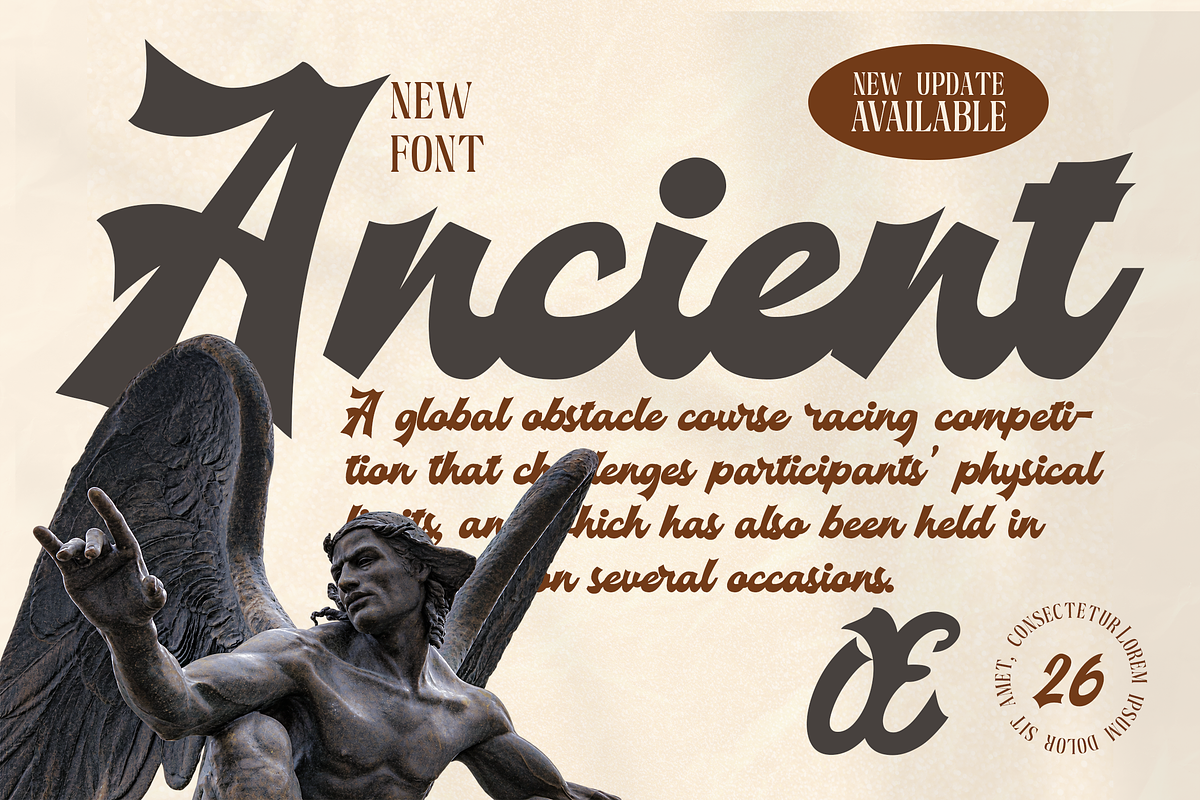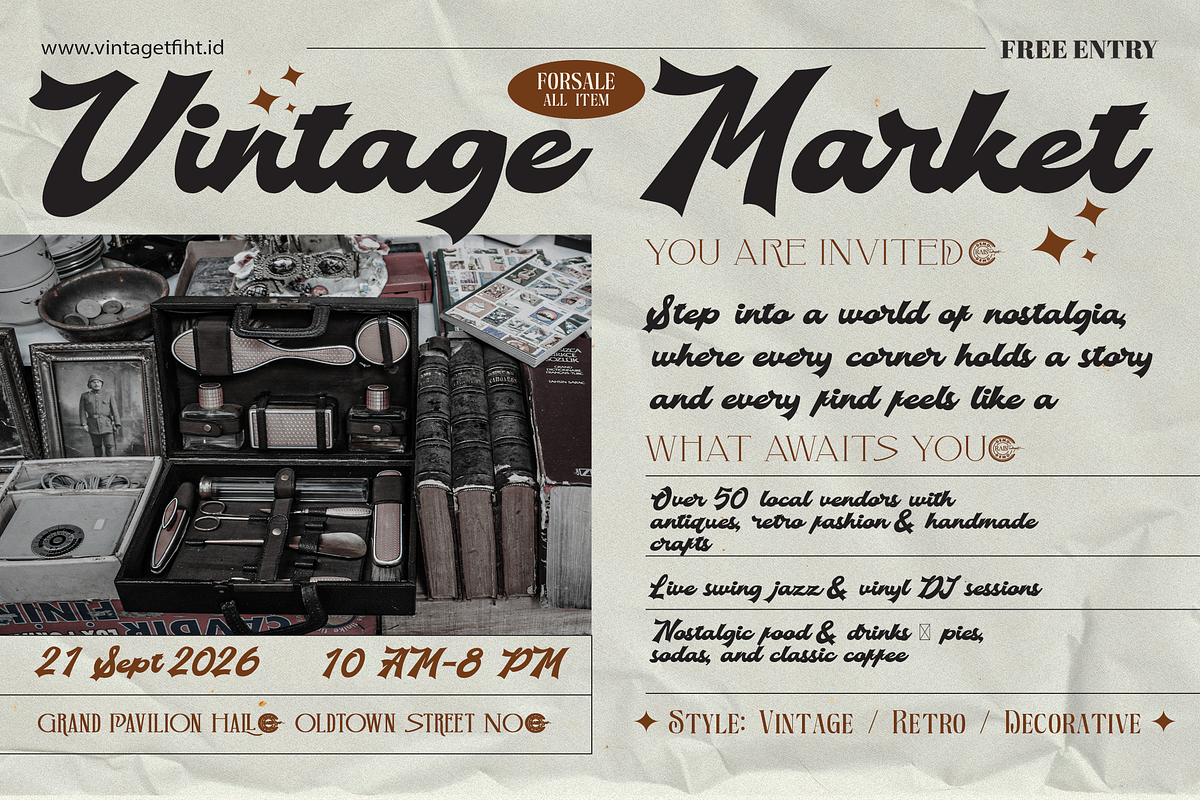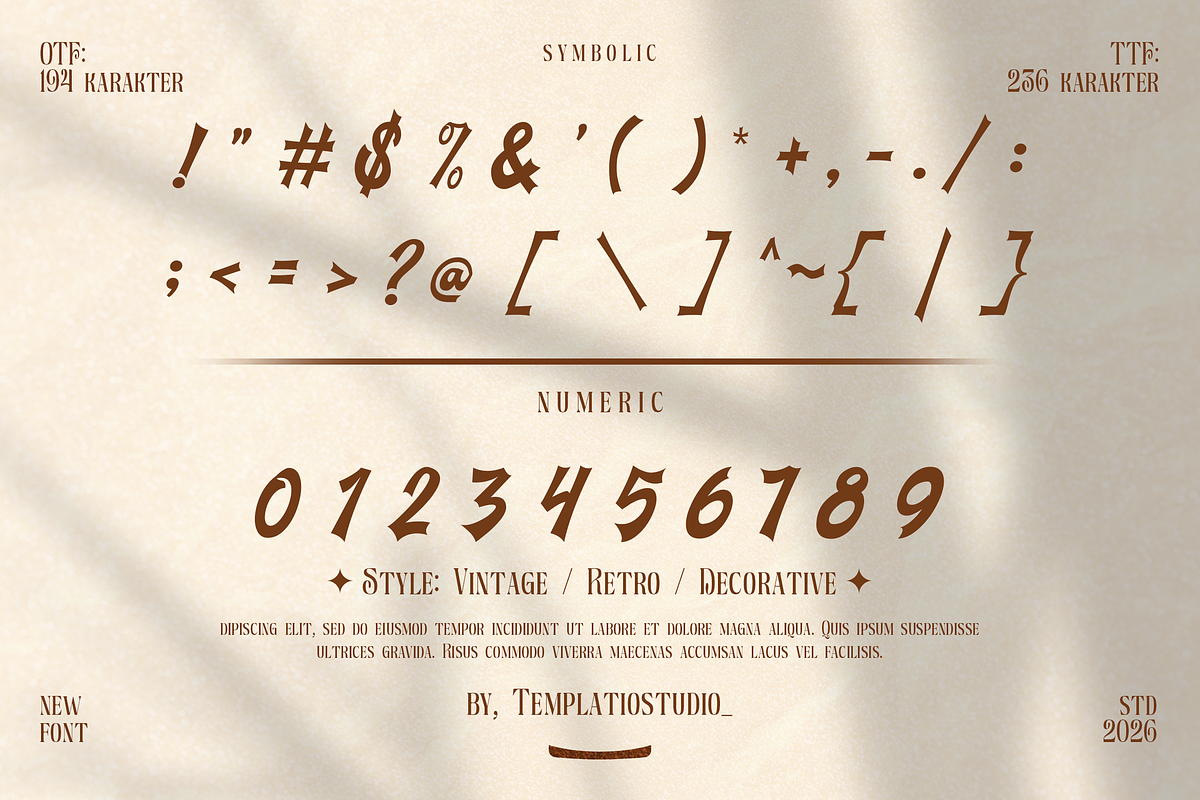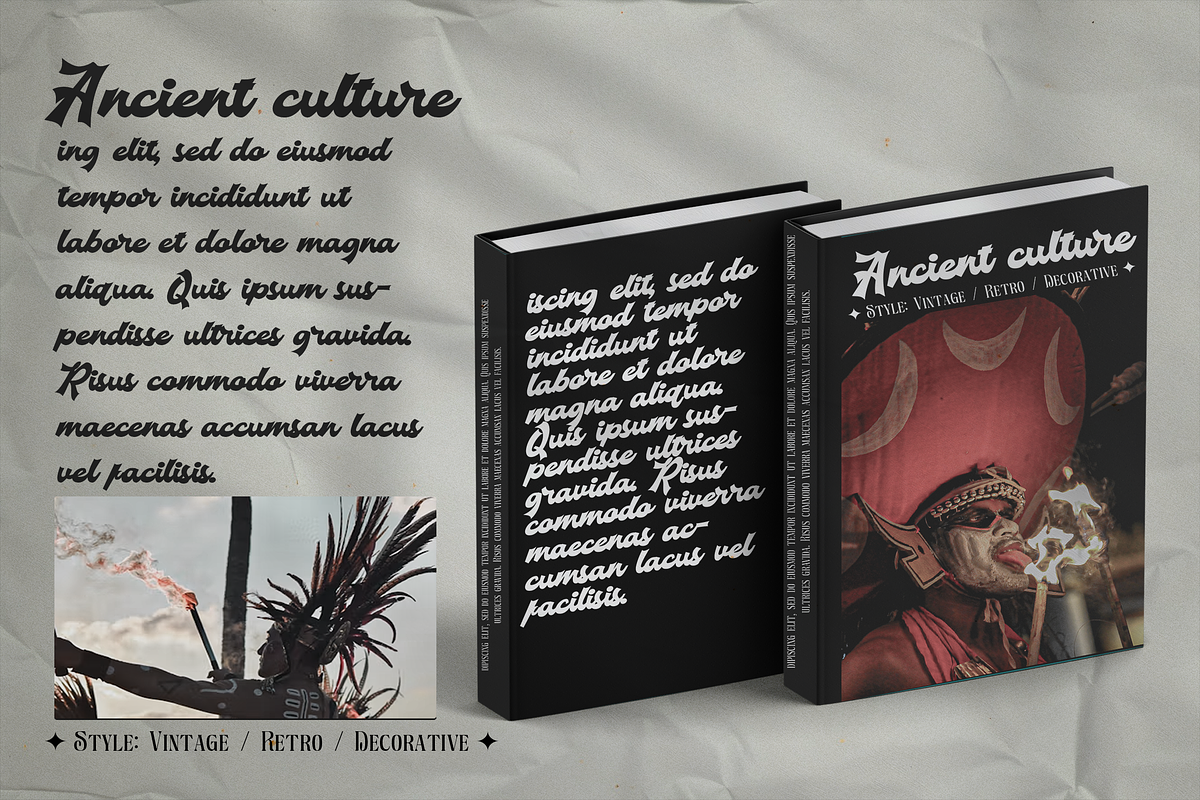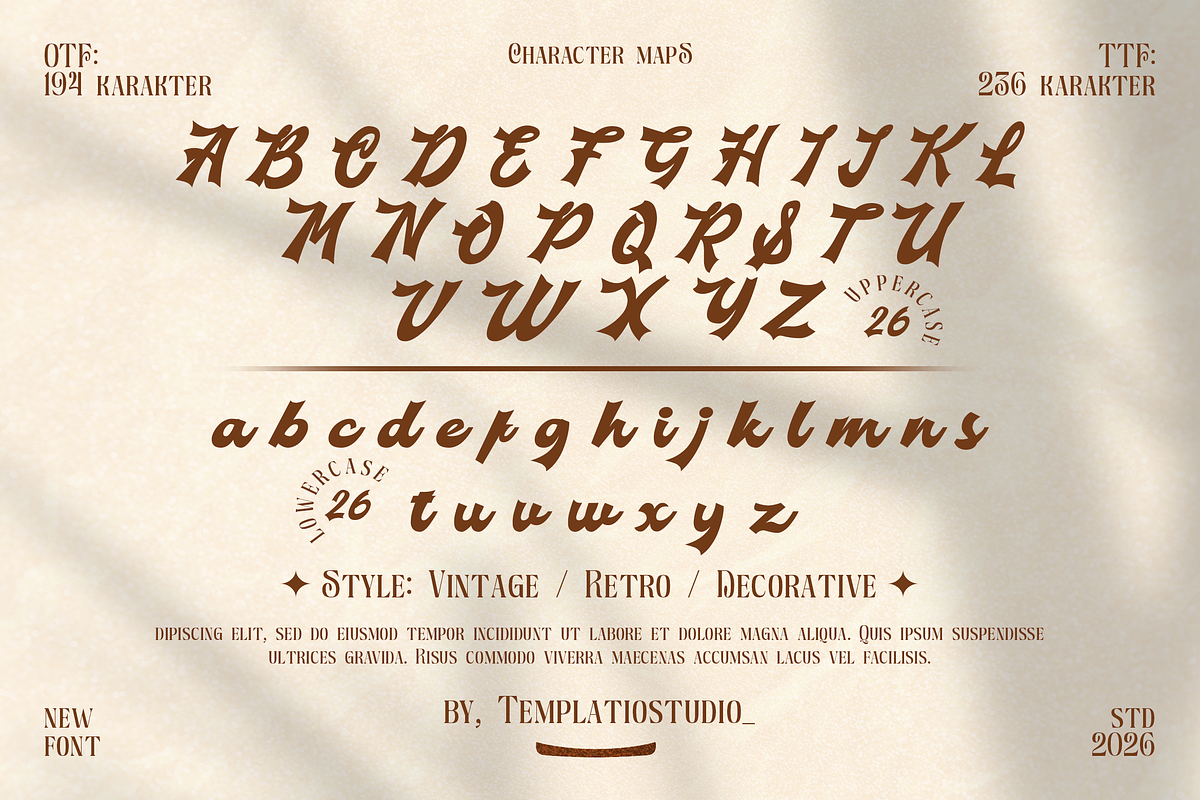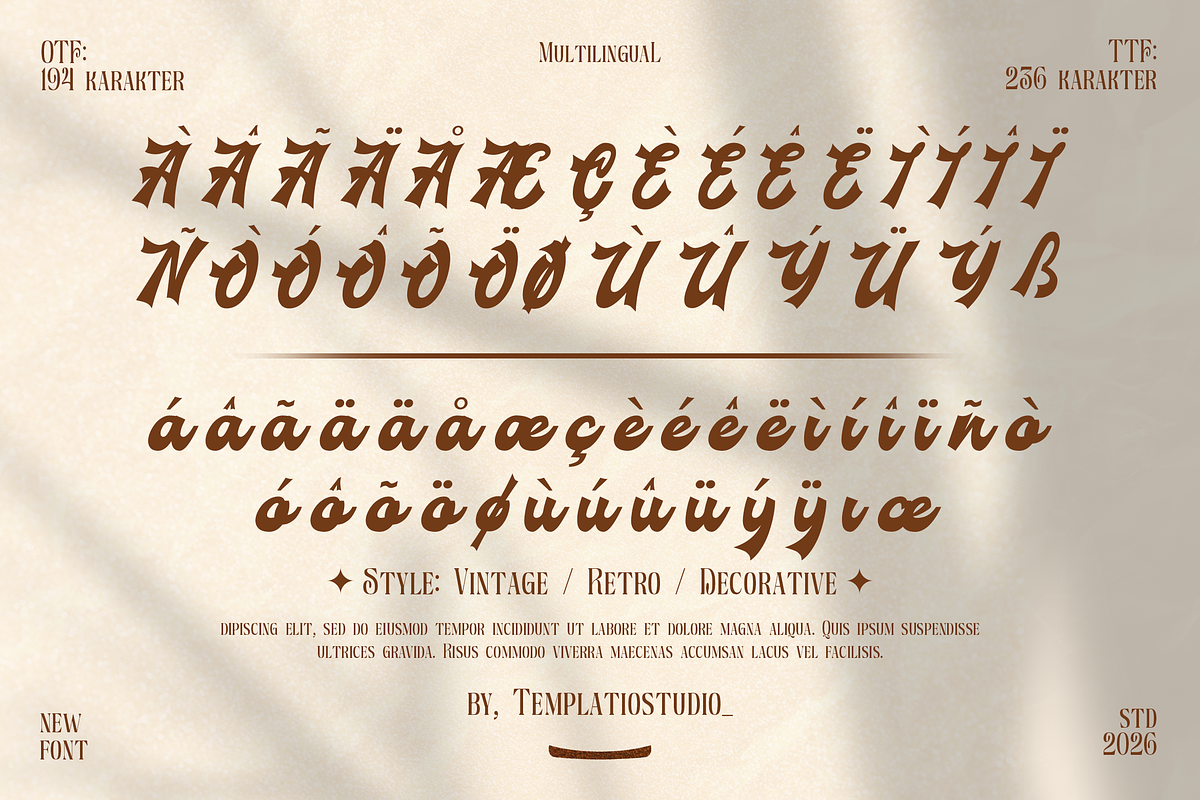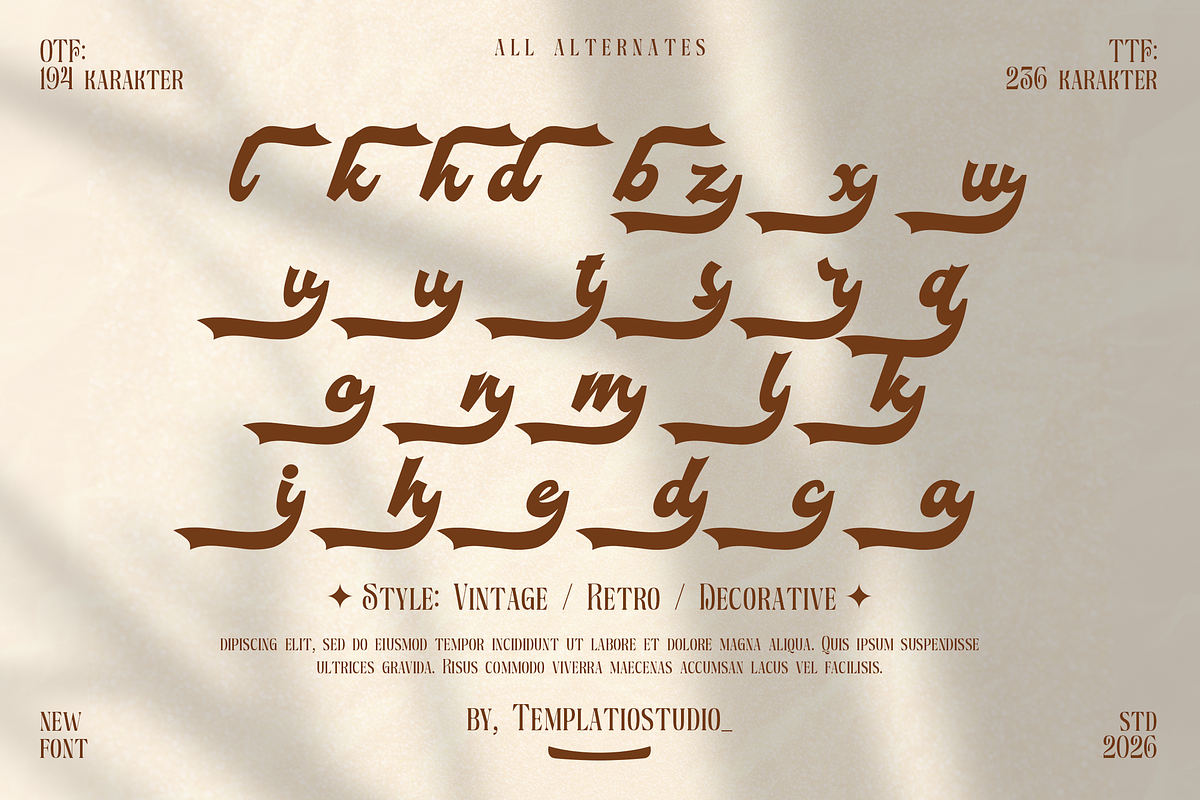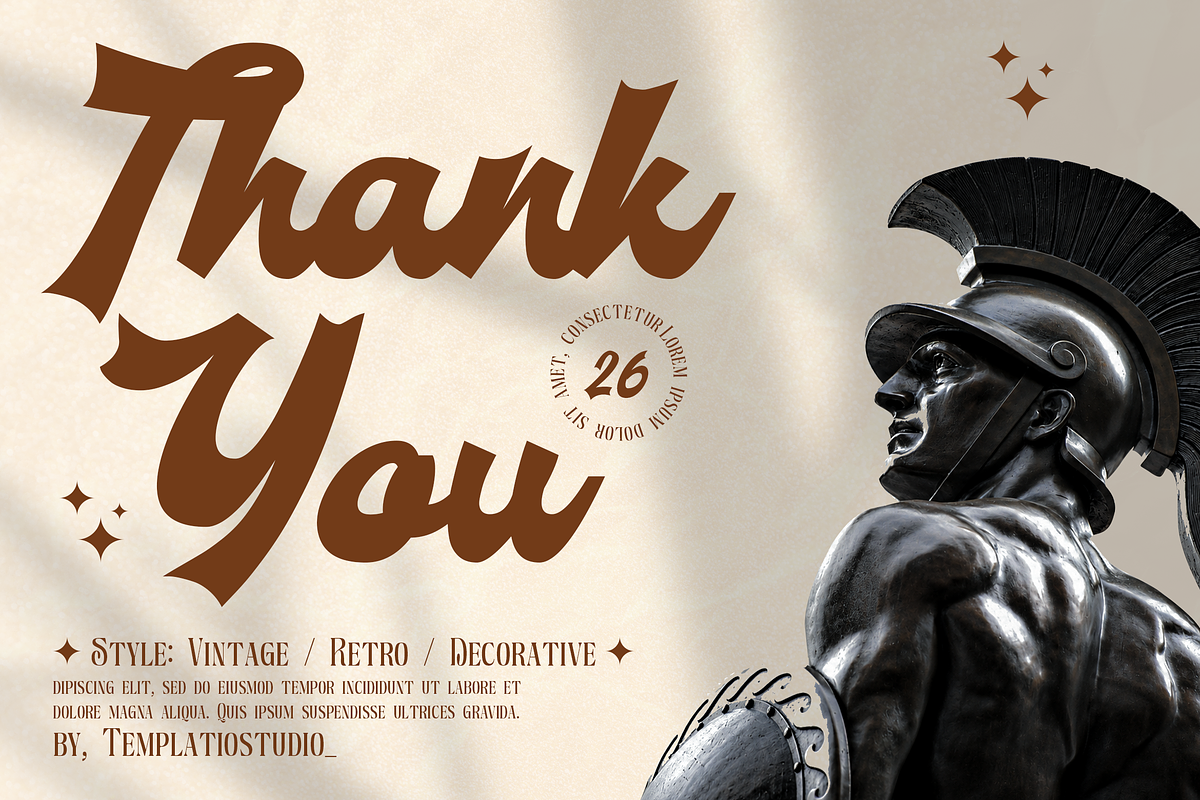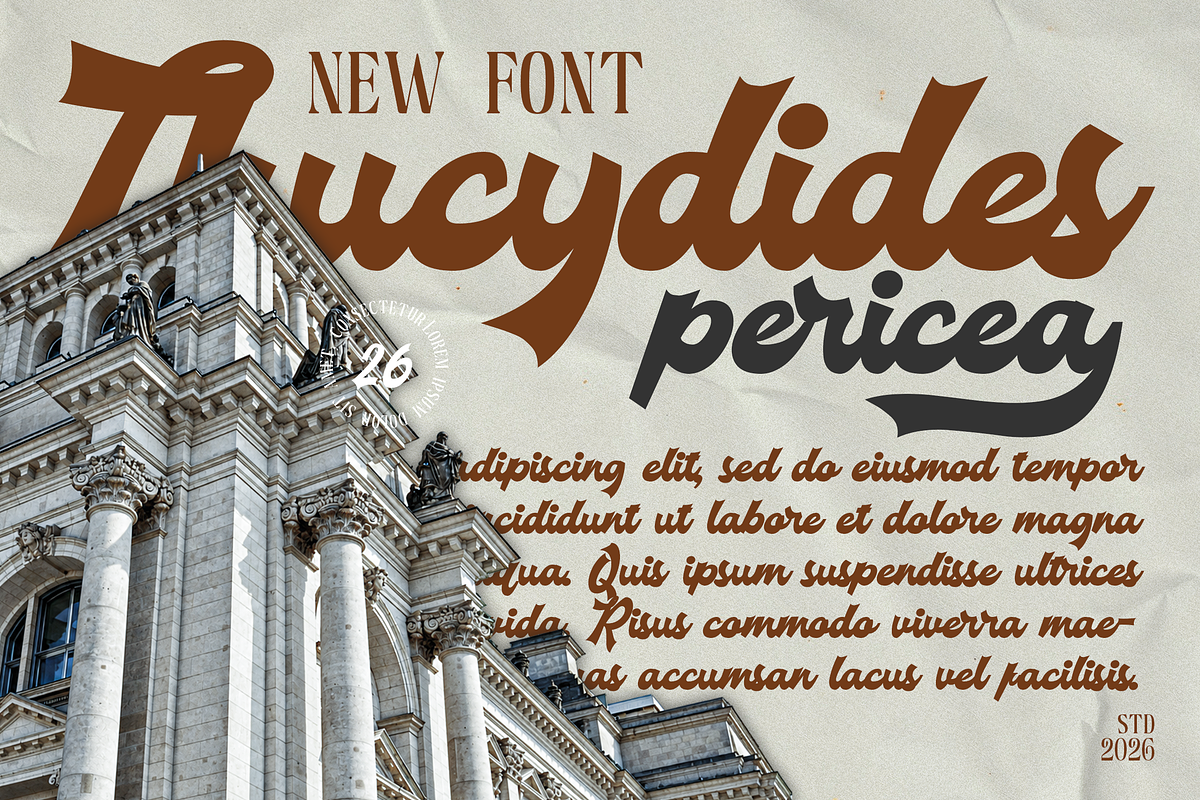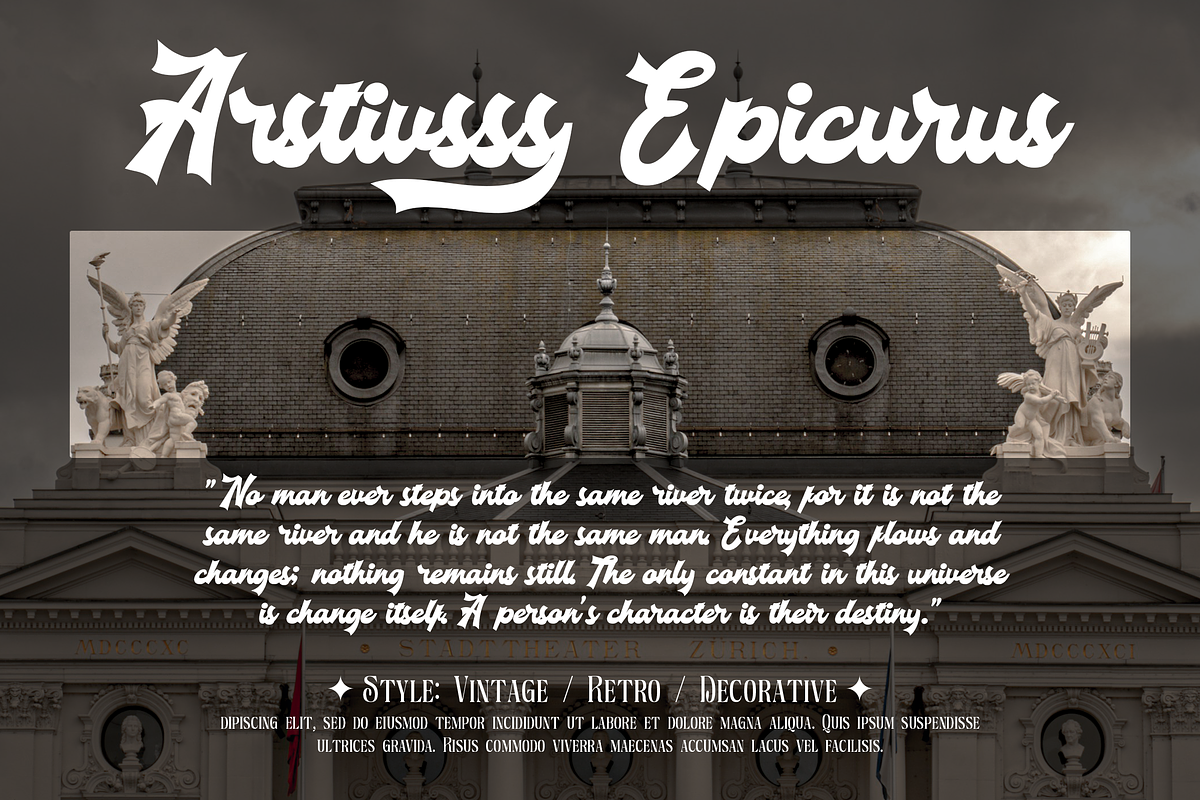
Vintage Fortuin Brush Script Font
Vintage Fortuin is a bold vintage-inspired brush script font
designed to bring a strong retro and handcrafted character to
your creative projects.
With its expressive strokes, slanted lettering and decorative
display style, Vintage Fortuin works especially well for logos,
branding, posters, packaging, apparel, labels, headlines,
signage, invitations and social media graphics.
- Vintage brush script style
- Bold and expressive letterforms
- Numbers 0–9
- Punctuation and common symbols
- Latin accented characters
- Alternate glyph feature